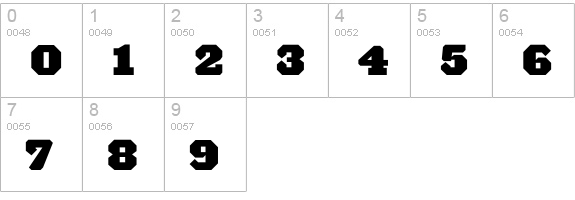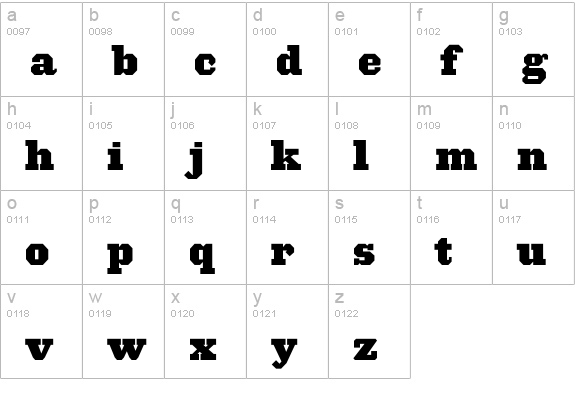
Acropolis-HTF-Black is a maximum-weight, dramatic variant in the Acropolis typeface family \xE2\x80\x94 well suited to maximum-impact headlines, posters, and packaging.
Acropolis-HTF-Black is a stunning and sophisticated font that exudes elegance and modernity. With its bold and sharp lettering, this typeface commands attention and adds a touch of luxury to any design project. Whether used for headlines, logos, or branding materials, Acropolis-HTF-Black makes a powerful statement. The best part is that this exquisite font is available for free download at FontsMarket.com. You can easily access and incorporate Acropolis-HTF-Black into your creative projects without any cost. Don't miss out on this opportunity to enhance your designs with this exceptional typeface. Download Acropolis-HTF-Black today and elevate your work to the next level.